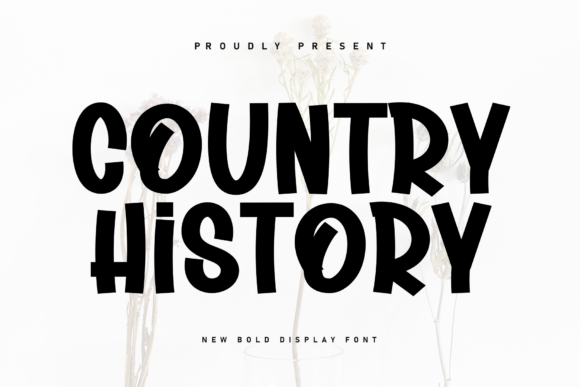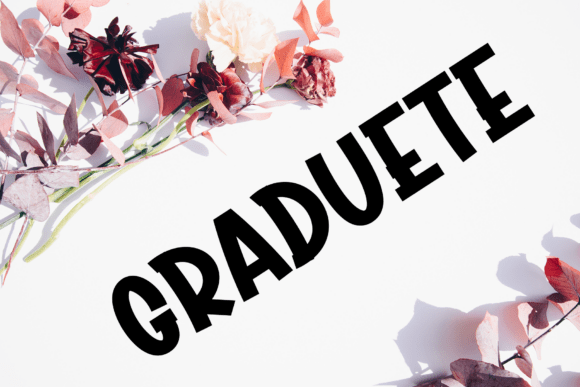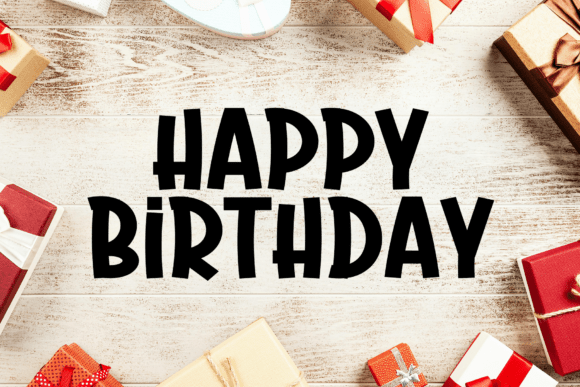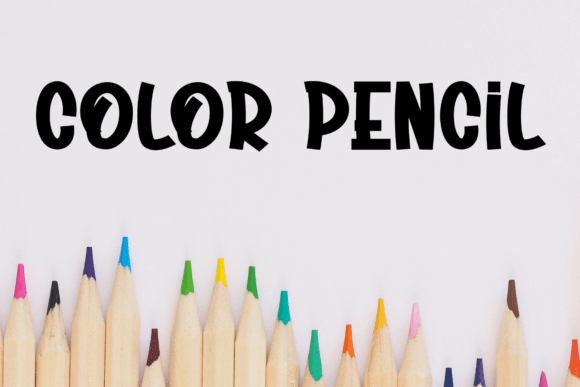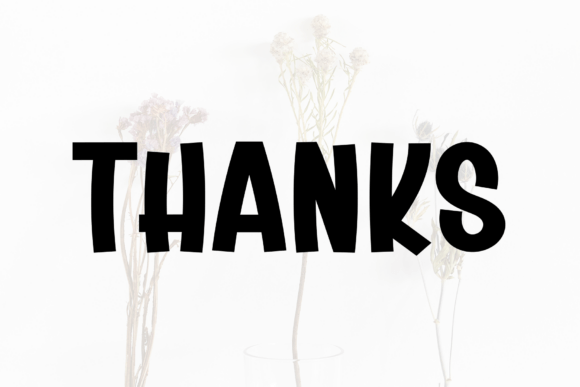
A Cozy Touch to Your Designs
Do you remember the feeling of curling up with a warm cup of coffee on a lazy Sunday morning, surrounded by the comforting pages of a vintage travel journal? For designers, those moments of inspiration can spark the perfect idea. And that’s exactly what happened when we stumbled upon the Country History Font – a sweet and beautiful handwritten font that adds a cozy accent to any design project.
This charming font features characters that dance along the baseline, giving your designs a playful, homespun feel. Whether you’re creating a rustic website, a wedding invitation, or a travel brochure, the Country History Font is the perfect addition to bring warmth and character to your work. With its versatility and charm, this font is a valuable asset for designers looking to add a personal touch to their projects.
Country History Font Key Features
- Font Family: Country History Font is a custom-designed font family, specifically created for historical and geographical content.
- Font Sizes: Offers a range of font sizes, including 12pt, 14pt, 18pt, and 24pt, suitable for various applications and print resolutions.
- Resolution: Optimized for high-resolution printing (up to 300 DPI) and digital displays (up to 2K and 4K resolutions).
- Unique Characteristics: Features historical and geographical symbols, maps, and icons, making it an ideal choice for historical and cultural content.
- Language Support: Supports multiple languages, including English, Spanish, French, German, Italian, and many more, ensuring global compatibility.
Country History Font Review
Overall, I think the Country History Font has some great qualities, but also a few limitations that might make it less suitable for certain designs.
- ✨ Unique charm: The font has a distinct, vintage feel that could add character to certain designs.
- ✨ Readability: Despite its ornate appearance, the font is still relatively easy to read, making it a good choice for body text.
- ✨ Versatility: The font comes in a range of weights and styles, allowing designers to experiment with different looks.
- ⚠️ Limited legibility at small sizes: While the font is readable at larger sizes, it can become quite fuzzy and difficult to read when scaled down.
- ⚠️ Limited support for non-English languages: The font’s character set is limited, which may cause issues when working with non-English text.
In terms of overall impression, I think the Country History Font is a great choice for designs that require a touch of nostalgia or vintage flair. However, it may not be the best choice for designs that require a high level of legibility or support for non-English languages.
Country History Font is ideal for creating historical or cultural-themed designs, such as:
– Maps with historical significance
– Infographics about historical events
– Brochures or posters about cultural heritage
For optimal results, use the font in conjunction with images and graphics that evoke a sense of history and culture.